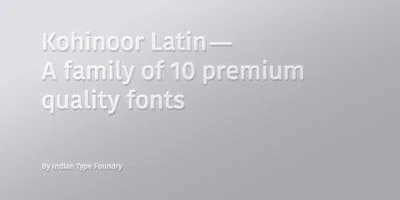
Kohinoor Latin Font
Kohinoor Latin Font is a sophisticated and highly versatile humanist sans-serif typeface, designed for exceptional readability across a wide range of applications. Its elegant low-contrast design makes it an ideal choice for both extensive body text and impactful display headlines. Imagine it perfectly suited for professional corporate documents, modern website content, clear and concise mobile app interfaces, editorial layouts for newspapers and magazines, academic publications, and compelling digital advertising. This font excels in environments where clarity, professionalism, and a clean, contemporary aesthetic are paramount. It ensures your message is not only visually appealing but also effortlessly digestible, making it a workhorse for effective communication.
What makes Kohinoor Latin Font truly exciting is its intelligent blend of humanist warmth and modern efficiency. It carries a subtle, inviting quality that distinguishes it from more rigid sans-serifs, while maintaining the crispness and legibility essential for digital and print media. This font isn't just about displaying text; it's about creating a seamless reading experience, guiding the eye with its balanced proportions and refined curves. Its thoughtful design provides a sense of quiet authority and understated sophistication, making your content feel both trustworthy and approachable. Kohinoor Latin Font is a powerful tool for designers and businesses aiming for a clean, professional, and globally resonant brand identity.
The Kohinoor Latin Font family is typically extensive and robust, offering a comprehensive array of weights and styles to ensure maximum flexibility for diverse design projects. You'll often find it includes a full spectrum from light and book to demi, medium, bold, and sometimes even black weights, along with their complementary italic styles. This wide range provides ample options for creating clear typographic hierarchies and emphasizing different elements within your text. Being part of the larger Kohinoor Multiscript series, it's designed to harmonize with various Indic scripts, making it an excellent choice for projects requiring consistent branding across multiple languages. Its broad character set covers a wide range of Latin characters, numbers, and extensive punctuation, ensuring that Kohinoor Latin Font is suitable for international use and complex textual layouts.